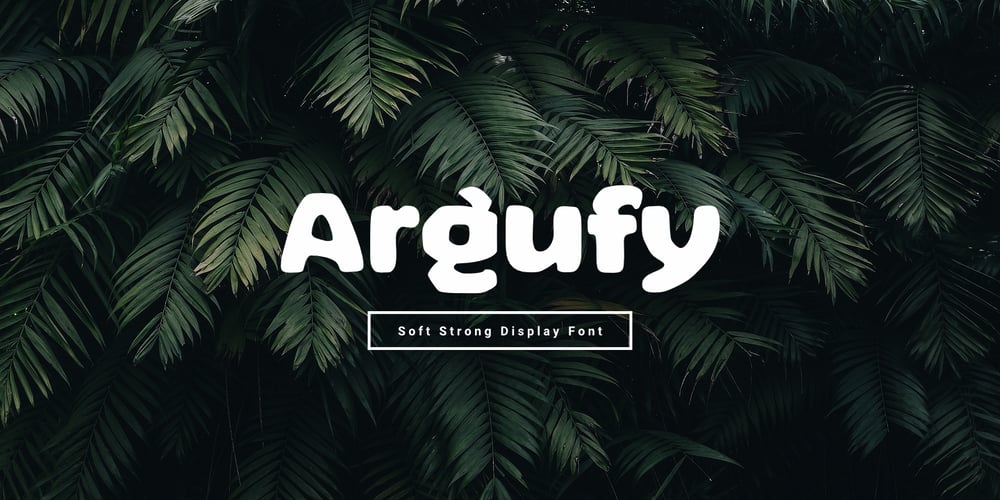
Argufy Font Family was designed by Ali Hamidi and published by Ali Hamidi. Argufy contains 1 styles and family package options. Argufy is a cool, vintage styled and organic display font. It will look stunning on any food menu, poster flyer or print.Use this font for your designs and explore its endless possibilities.